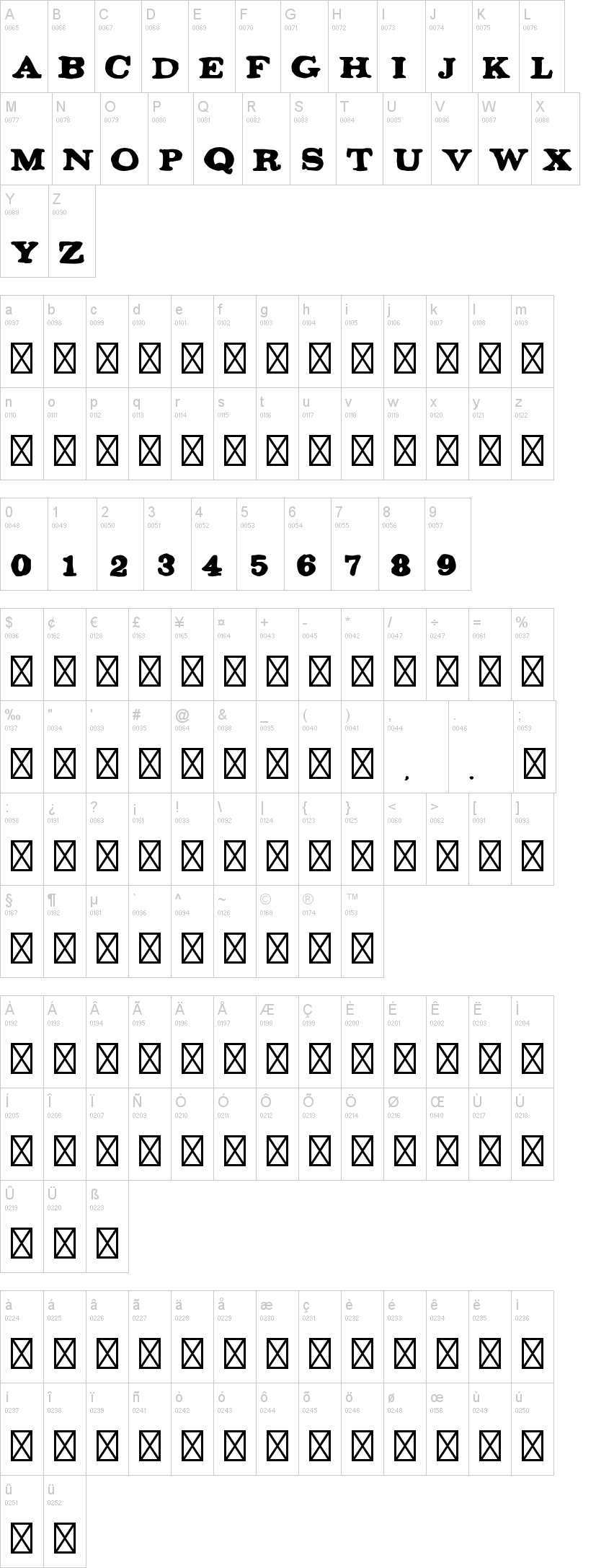
GAZA67.ttfGAZA14.ttfNote of the authorAs time marches on, the Palestinian map continues to shrink.
To foster awareness of this plight, and in turn raise funds for the Palestine Childrens Relief Fund (PCRF) a non-profit organization that works to better the lives of Palestinian children stricken by the diaspora, we created Gaza, a collapsing typeface in three weights that represent the loss of land in 1948, 1967 and 2014. Through it, you can see the disintegration of Palestine, literally.